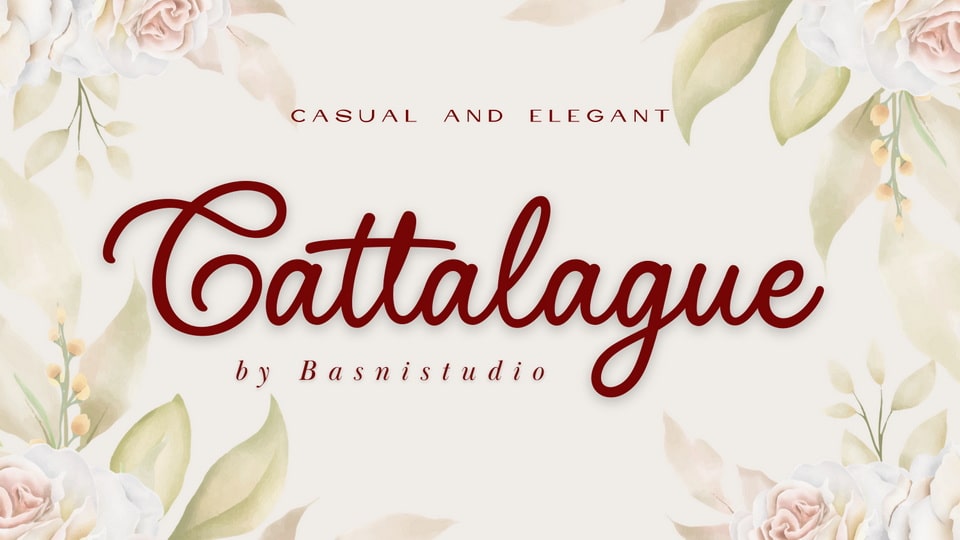
Download Cattalague font, a handwritten script typeface that adds a bold and versatile touch to everything from branding and social media to invitations and packaging.